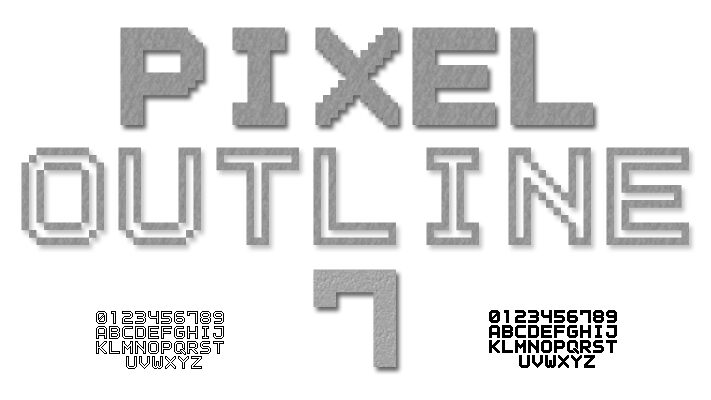
Outline Pixel-7 by Style-7 is a free outlined pixel font with the stark profile of an early computer display. Its tall capitals are mostly broad and open, with long straight runs and generous interior gaps that make the lettering feel engineered rather than compact. Angular joins, squared ends, and occasional clipped corners give rounded letters a neatly octagonal shape, while the lighter stroke keeps the forms airy.
Arcade brands can use it for logos and merchandise. The same electronic character suits game interfaces, festival title cards, and electronic music posters, especially for designers addressing retro-computing fans, players, and audiences drawn to 1980s-style screen graphics.
Outline Pixel-7 by Style-7 is a free outlined pixel font.